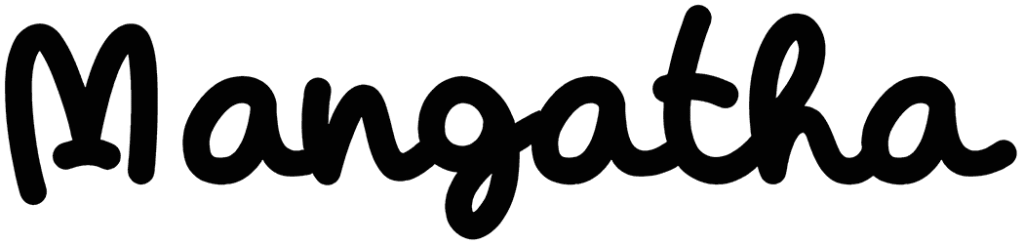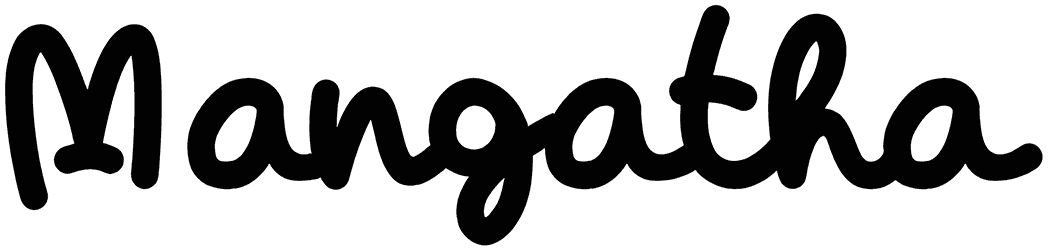
Mangatha Font
With a unique and realistic letterform, your design can grab a lot of attention, and this handwritten font has the potential to do it. The characters of the Mangatha font are thick and cursive and can convey a modern feeling. Set this script font on your travel postcard or other layouts and amaze your viewers.